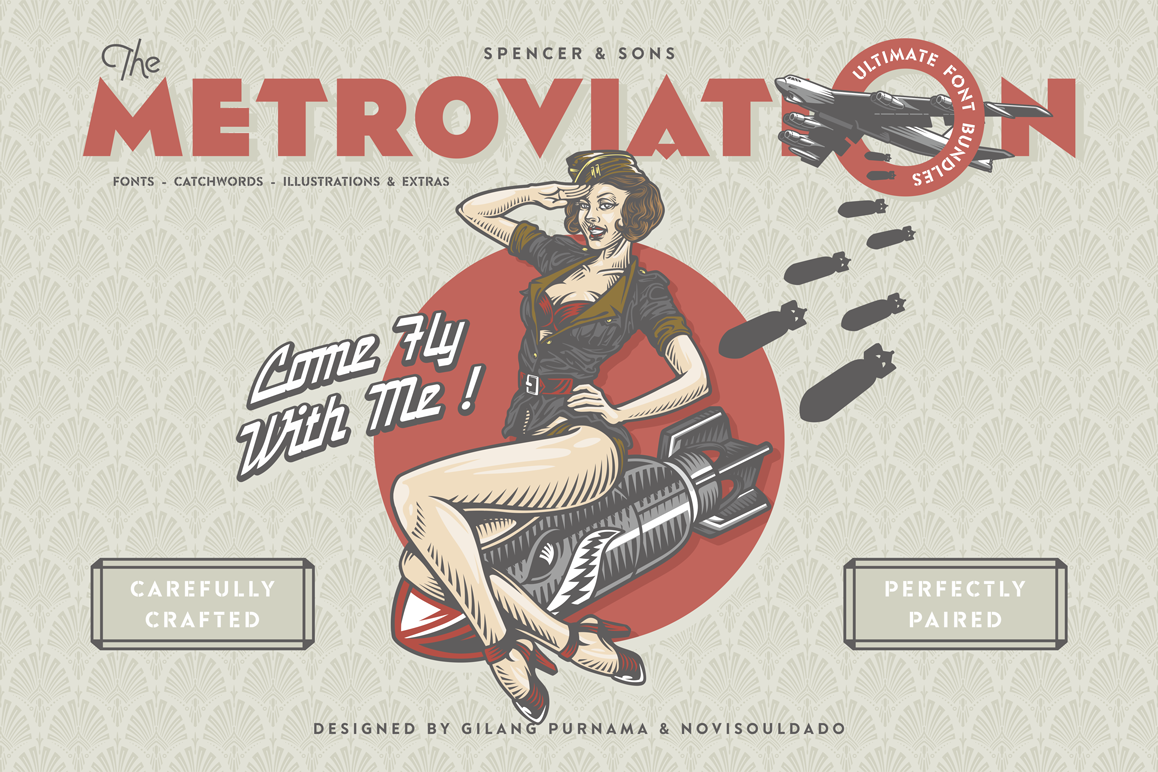
S&S Metroviation Font Bundles
S&S Metroviation Font BundlesMetroviation was a pastiche of many different styles, sometimes contradictory, united by a desire to be modern. From its outset, Metroviation was influenced by the bold geometric forms of Cubism.Metroviation Font Bundle was designed carefully to create elegant typographic works. It would be a perfect choice to design posters, affiches, logos, t-shirt and magazine prints, eye-pleasing typographic designs and more.what you get :